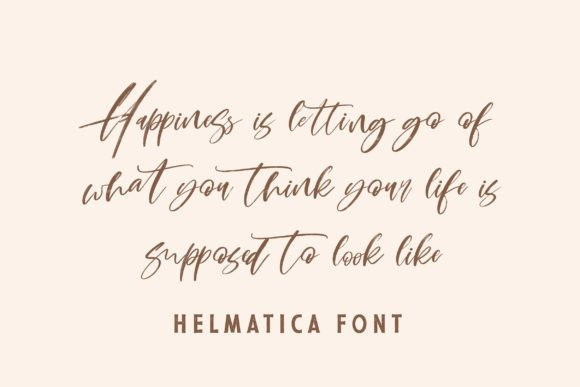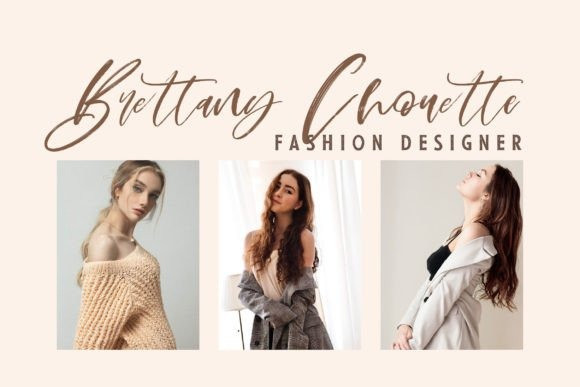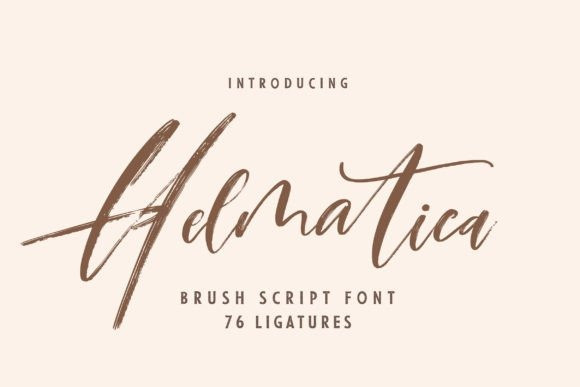
Helmatica Font
Helmatica Script Font delicate design features flowing, graceful lines and intricate, artistic flourishes that evoke a sense of beauty and sophistication. Perfect for wedding invitations, upscale branding, and other refined designs, Scriptina adds a touch of timeless elegance to any project.